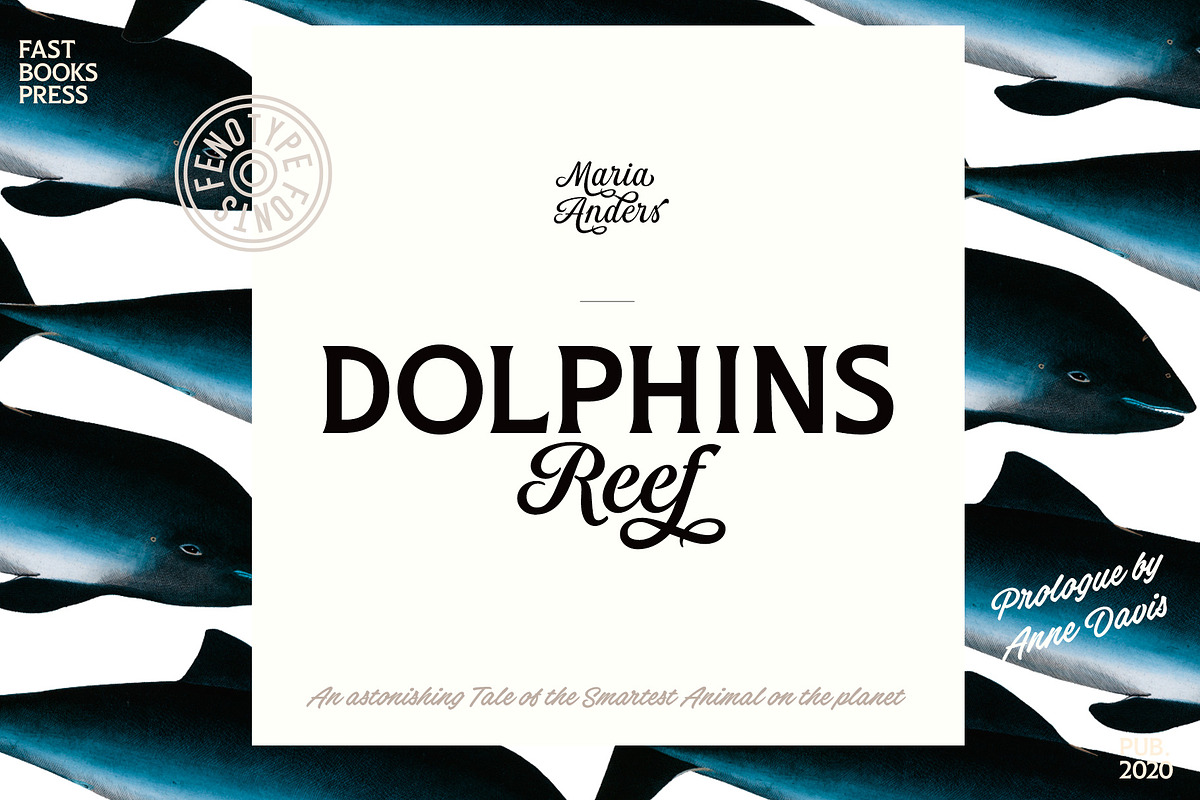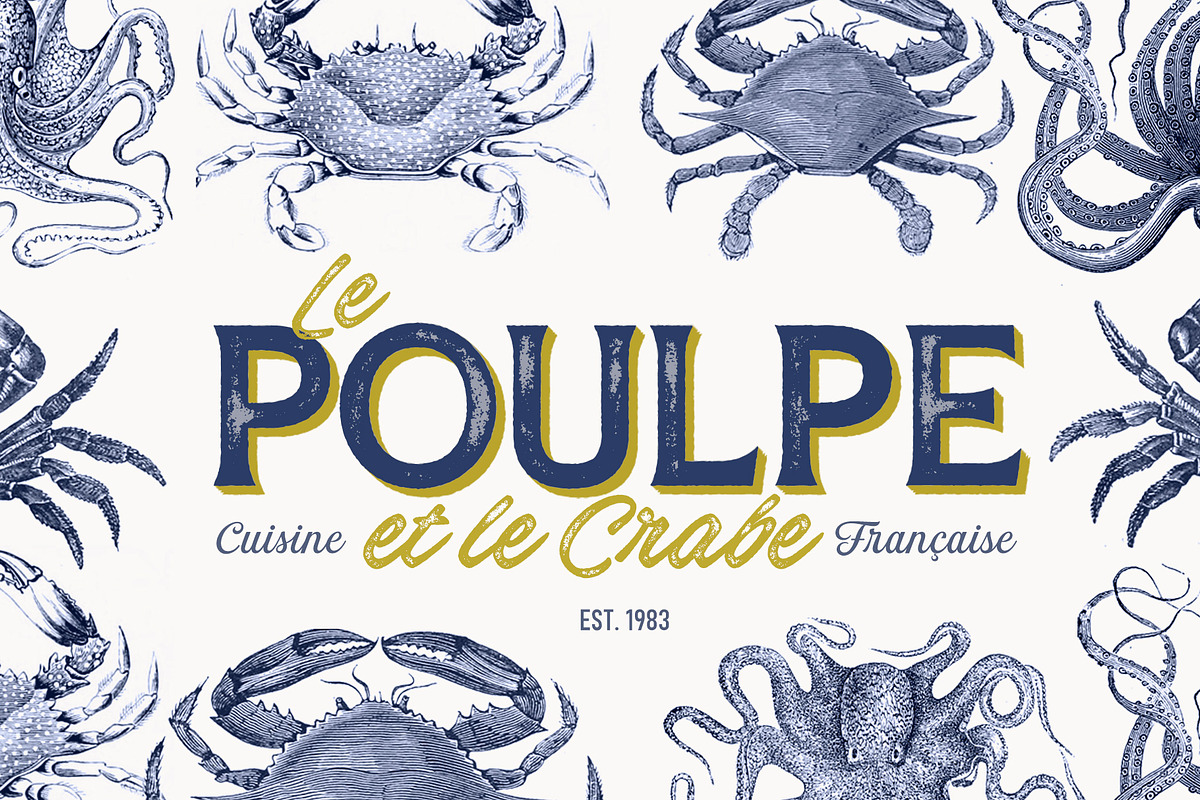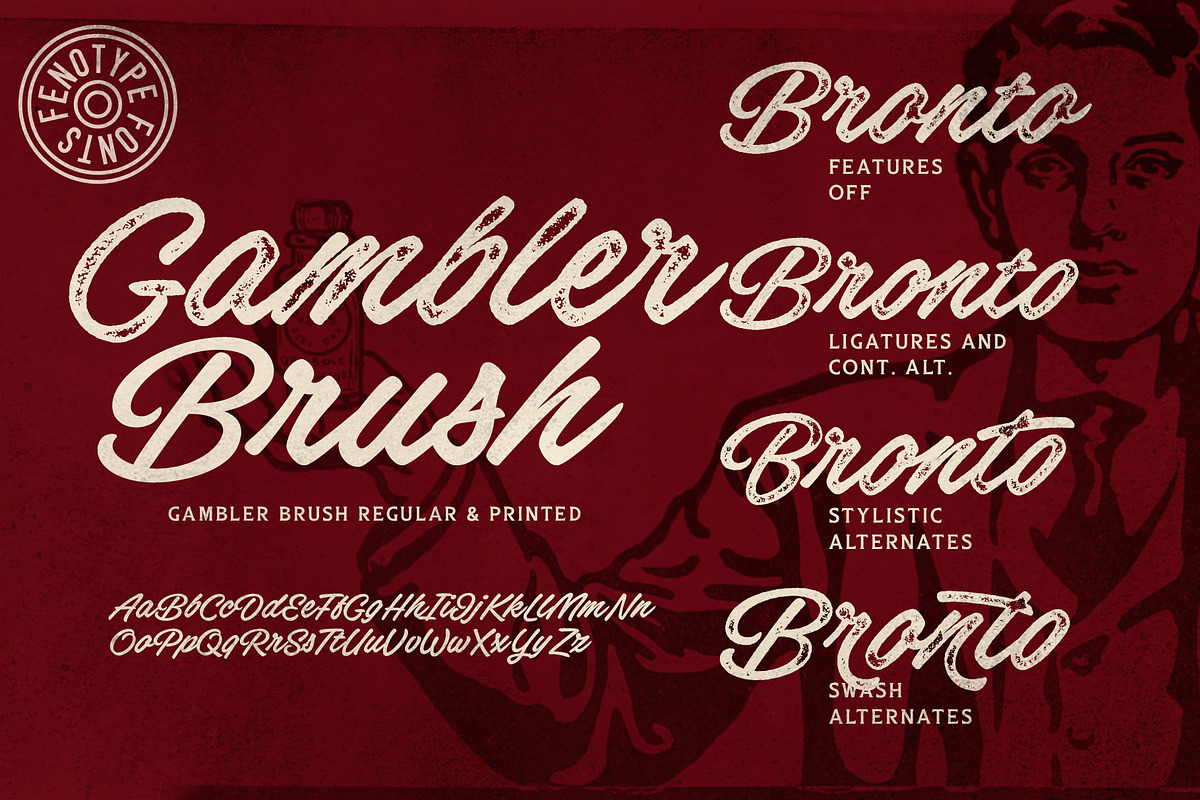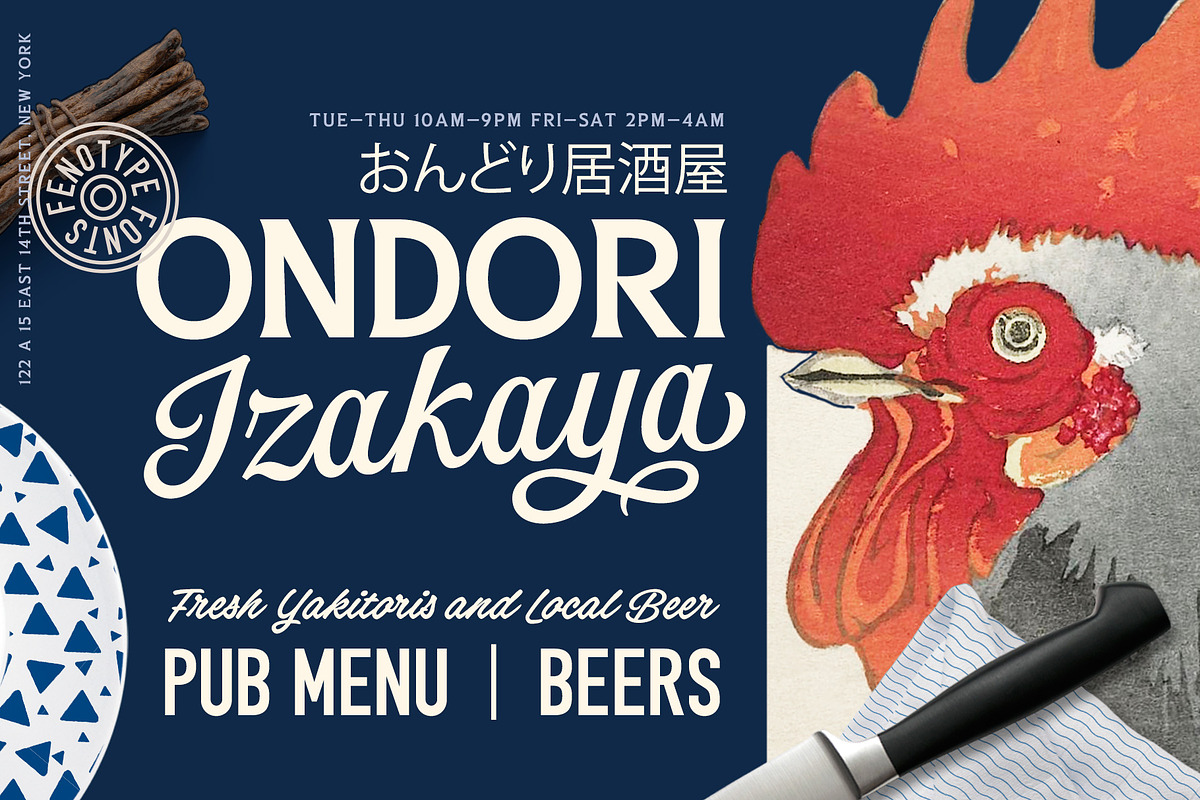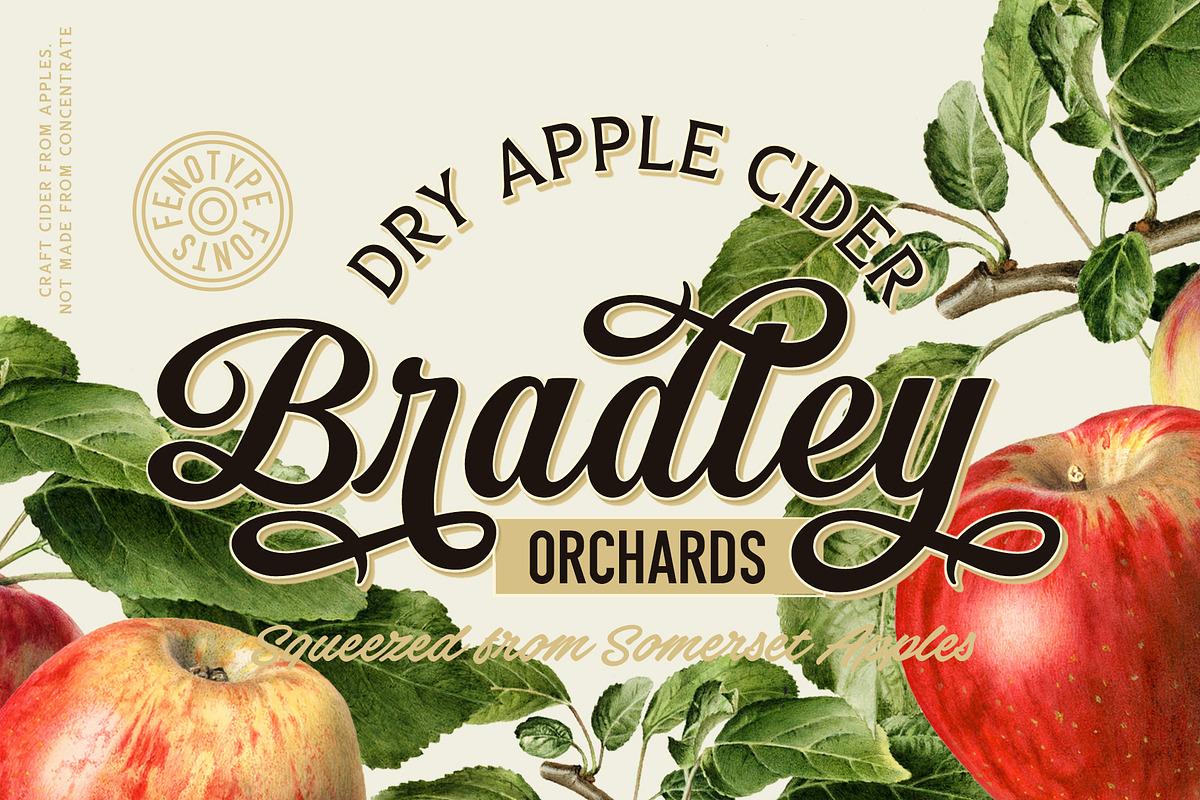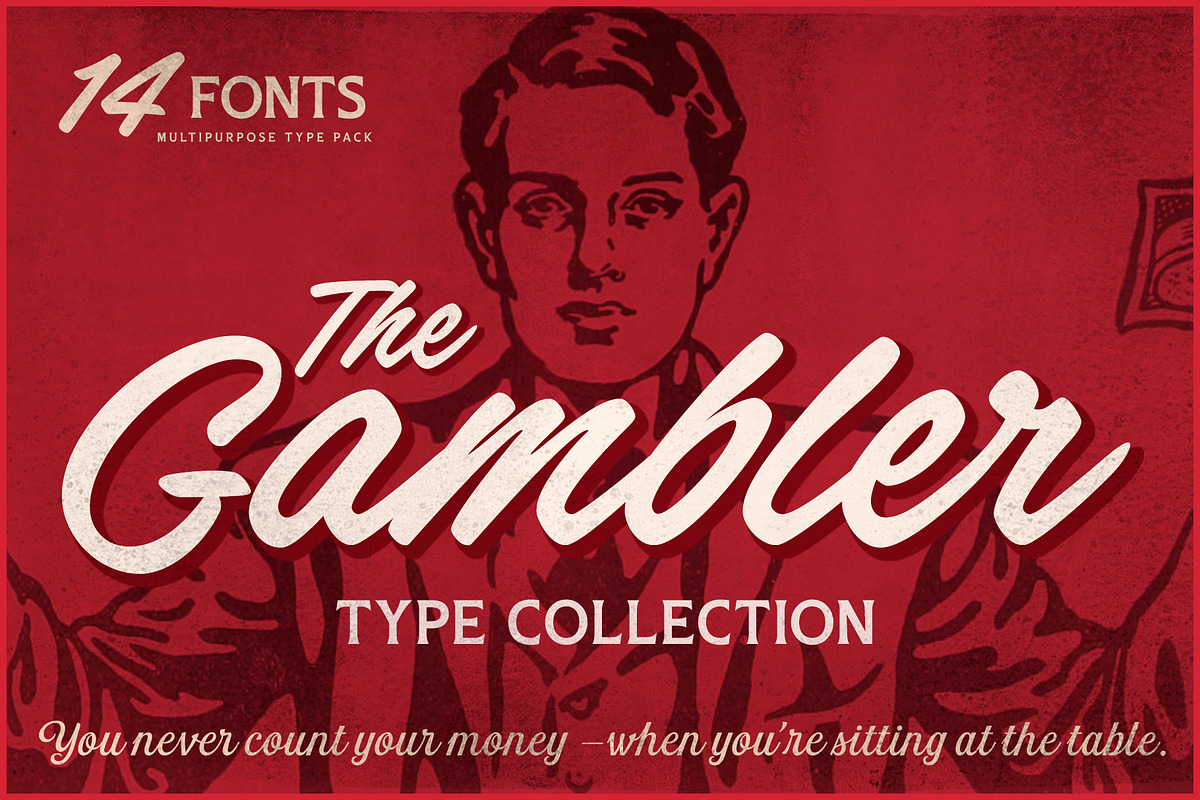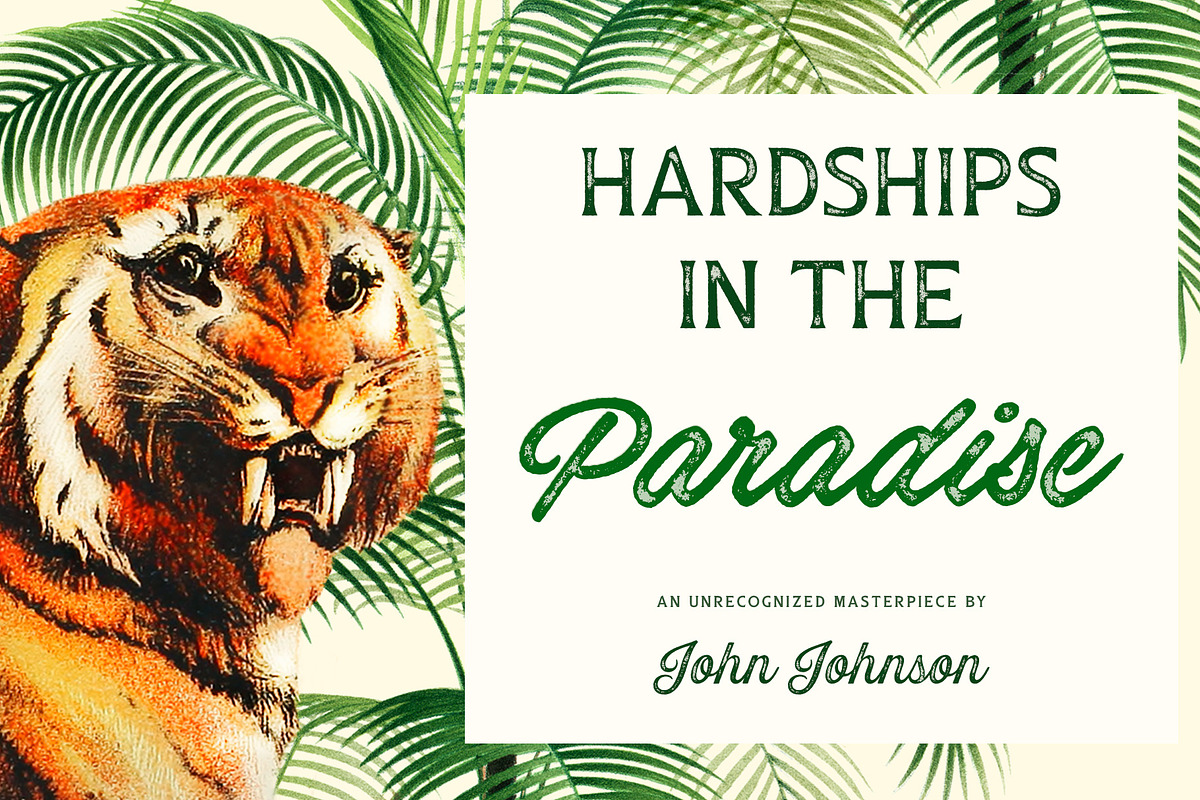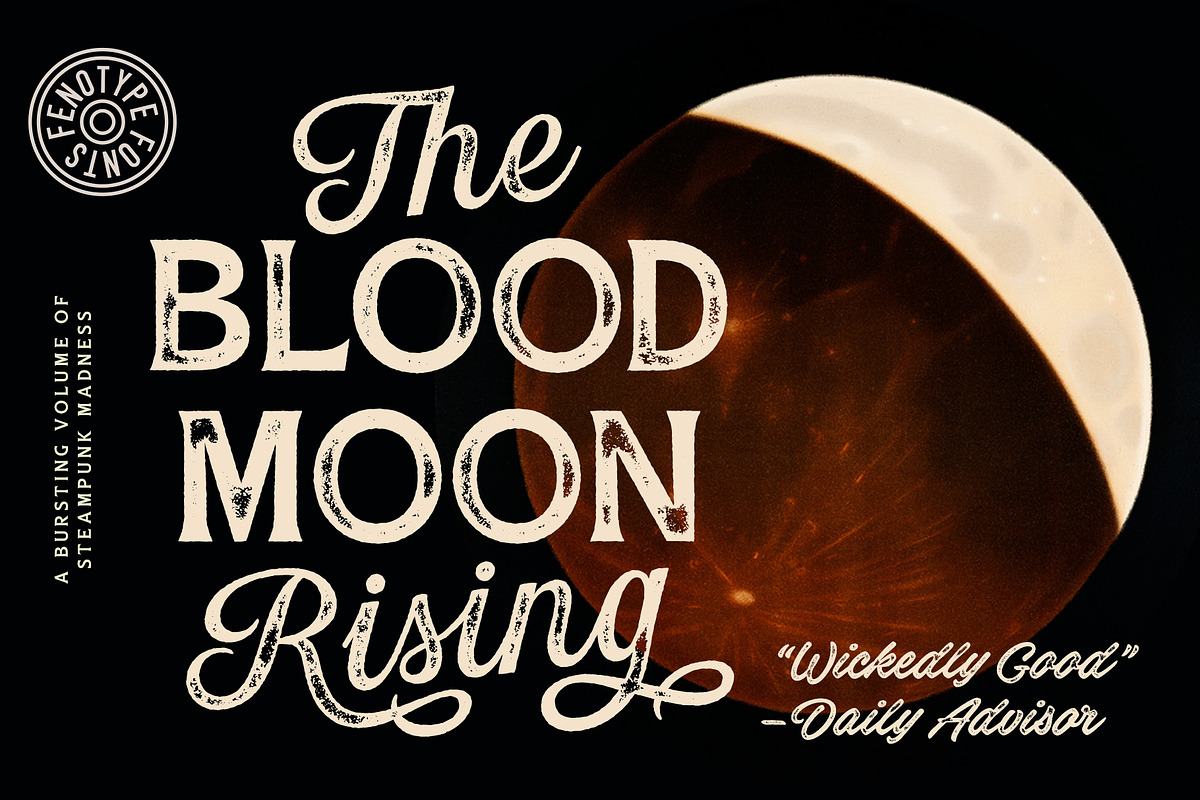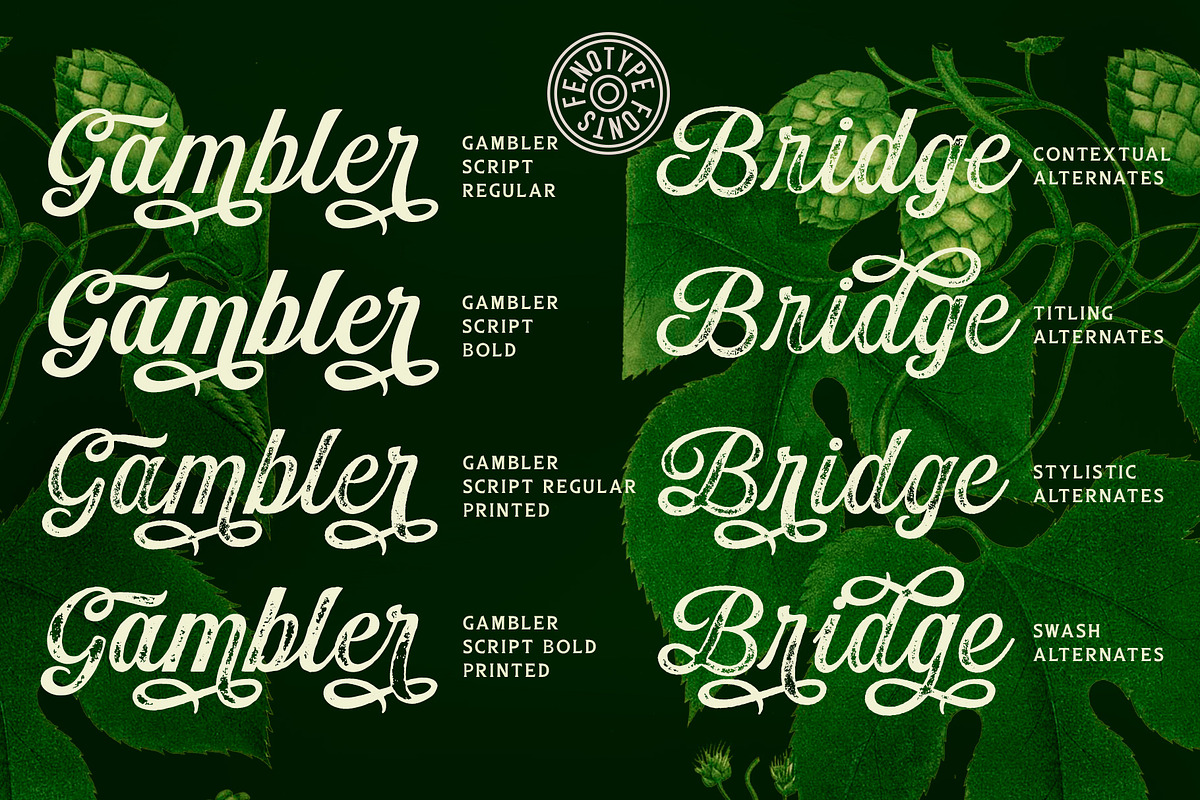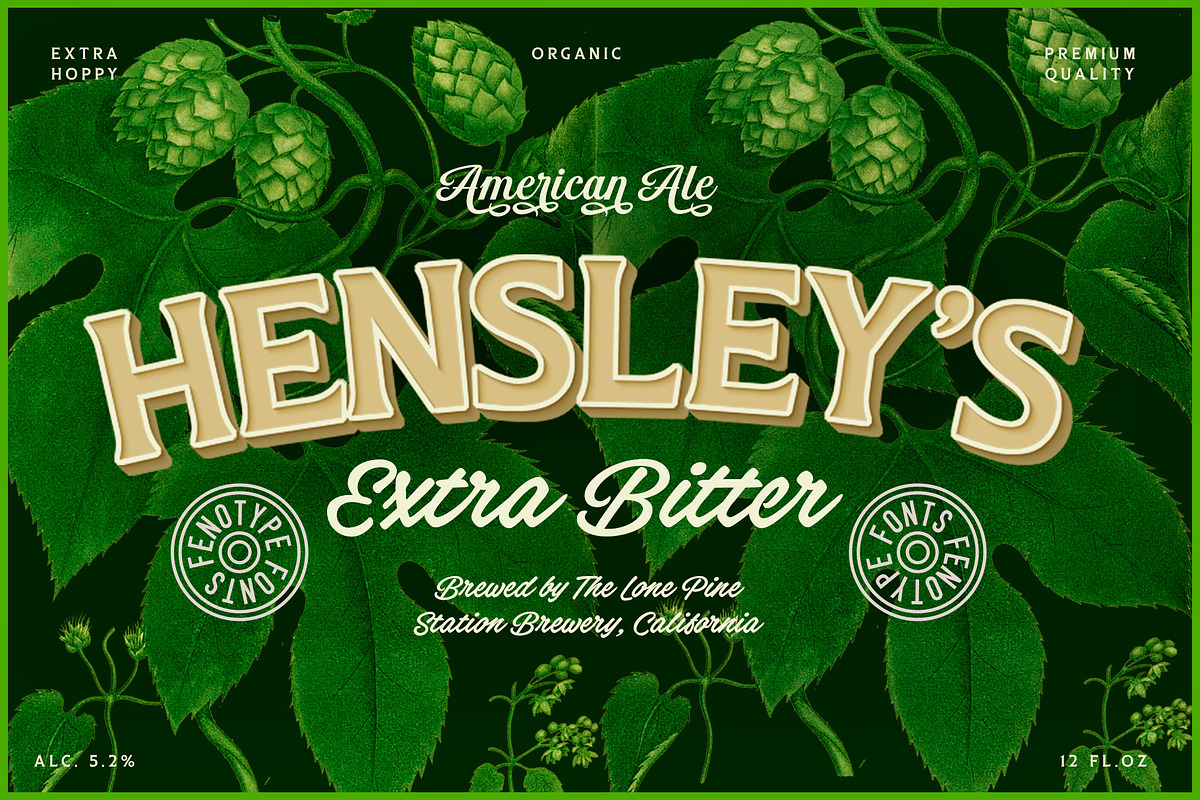
Gambler Type Collection
Gambler is a characteristic display type collection of 7 font styles with both clean and textured -making it total 14 fonts designed to play together. Gambler strikes with witty and elegant appeal combining vintage and modern elements. Gambler is an effective set for creating identities for branding, posters, book covers, headlines, logotypes, prints on garments, restaurant menus, beer labels and so on, both offline and online.
Gambler Script is a smooth contrasted script that comes in two weights and it is packed with plenty of OpenType features: Standard Ligatures and Contextual Alternates are automatically on and they help to keep the flow and connections smooth. From Stylistic Alternates you’ll find characters with pointed endings and some other small variations. For extra flair try Swash or Titling Alternates. Gambler Script is PUA encoded so you can access the extra characters in most graphic design softwares.
Gambler Brush is a soft brush script with low contrast and large x-height. Gambler Brush comes with following OpenType features: Standard Ligatures and Contextual Alternates that are automatically on and that keep the connections smooth. For less uneven word picture try Stylistic or Swash Alternates. Gambler Brush is PUA encoded so you can access the extra characters in most graphic design softwares.
Gambler Flare is a flared serif with sharp edges and wide characters Gambler Flare comes in two weights.
Gambler Gothic is a rigid condensed sans serif that comes in two styles: Regular and Shadow. Gambler Gothic Shadow has a narrow lining giving a three dimensional expression to the font.
Gambler fonts are designed to play together, in pairs, or all together but they also work great as themselves or combined with other Fenotype Fonts.